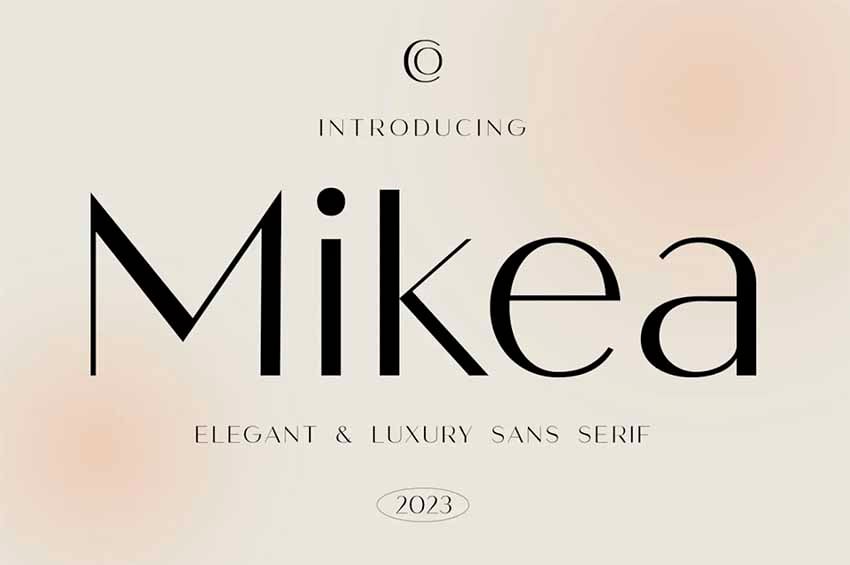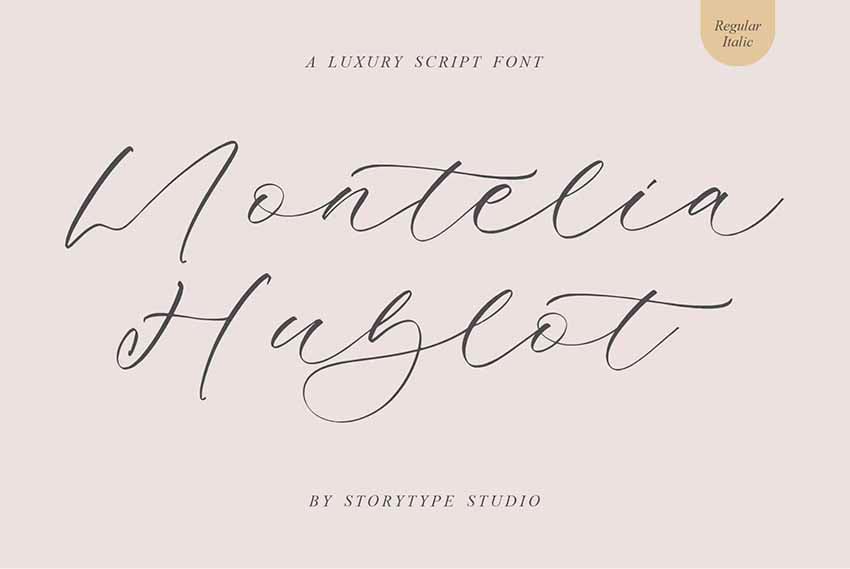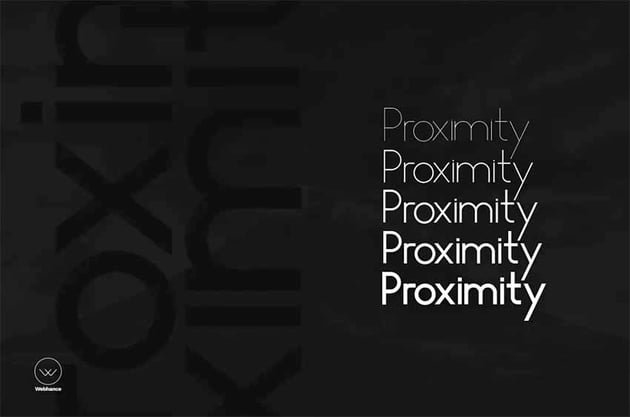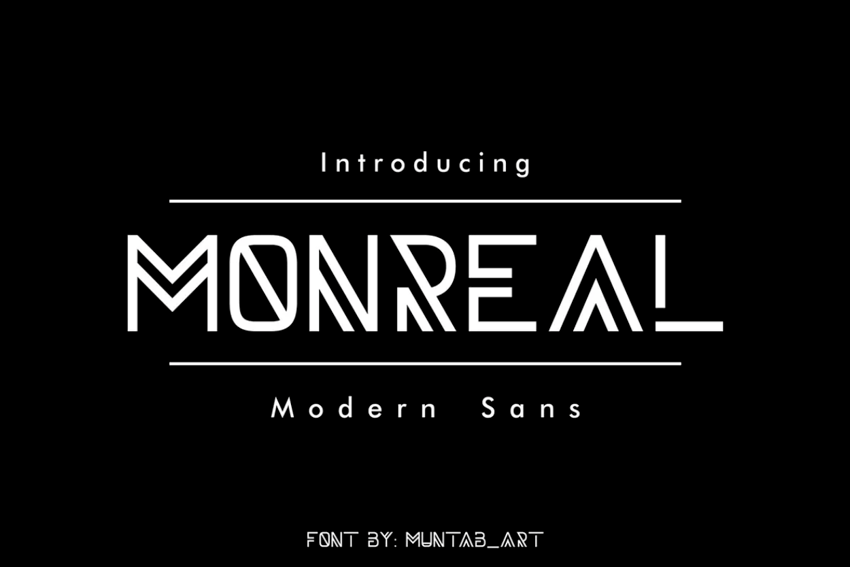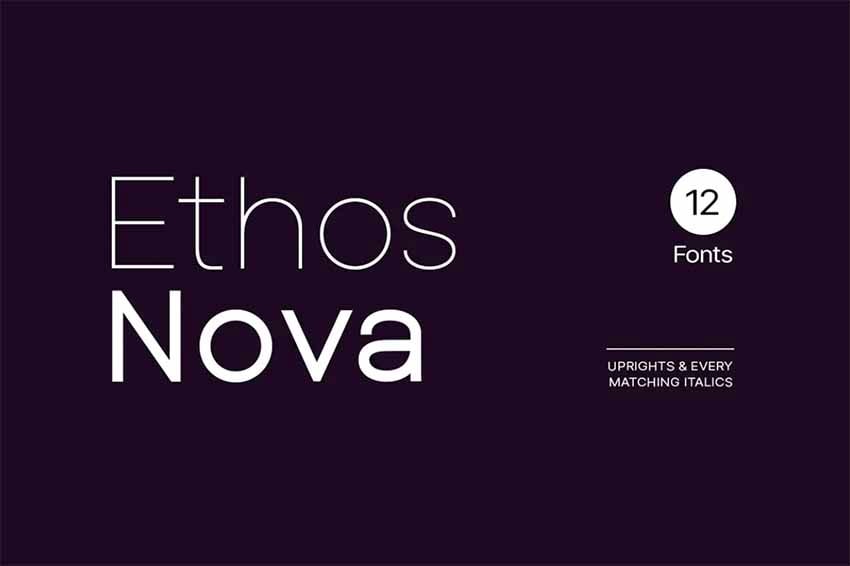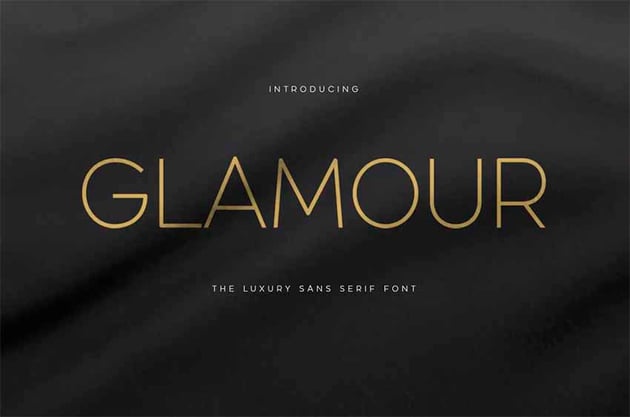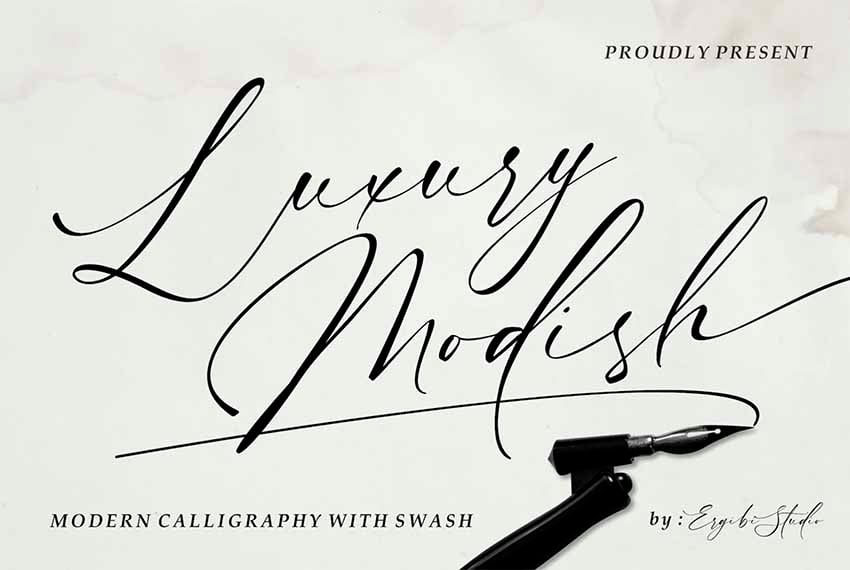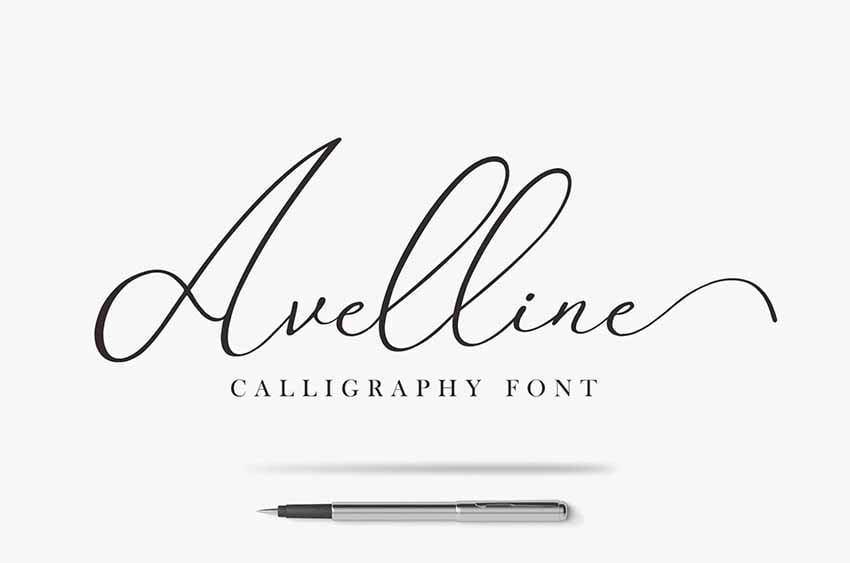
Best Luxury Font Combinations
These two luxury fonts complement each other beautifully. Mikea is a clean sans serif that brings a touch of opulence to your design, while Montelia is an elegant signature font with a carefree touch.
2. Wyattruly (OTF, TFF, WOFF)and Proximity Sans (OTF, TFF, WOFF)
If you're wondering what font yells luxury, check out Wyattruly. This luxury script font offers flowing and stylish lines. It works well with Proximity Sans, which is all about simple and clean lines in a wide range of weights.
3. Monreal (OTF, TFF) and Ethos Nova (OTF, TFF, WOFF)
Looking for something modern, cool, and classy? Monreal has all those characteristics and more. This unique decorative font works well with the understated Ethos Nova. This is one of those luxurious font pairings you won't be able to resist.
Priscyla is another luxury script font that offers flowing, stylised lines that are a great complement to the lean and classy Glamour. These luxury fonts work well for a wide variety of projects, from branding to magazine covers.
5. Saudah (OTF, TFF, WOFF) and Luxury Modish (OTF, TFF, WOFF)
Saudah offers strong and clean strokes that are great for titles, headers, signage, and more, while Luxury Modish has a wonderful calligraphic style that's perfect for accenting text. Together, this is one of those luxury font combinations that works for a number of projects.
Avelline is a stylish calligraphic luxury script font, and that's what makes it the perfect pairing for Marlin with its bold and clean strokes.
7. Deloiré (OTF, TFF, WOFF) and Senja Mentari (OTF, TFF)
Whereas Deloiré is simple, clean, and easy to read, Senja Mentor is stylish, individual, and oh so chic. Luxury font pairings like this are great for branding, logos, product packaging, and more.
Wondering what font yells luxury? Valencia is a cool Art Deco font that's an excellent choice when only the best will do. It pairs well with the light and flirtatious Quirtty. Luxury font pairings like this are just what you need for your special project.
With its smooth curves and beautiful ligatures, Gamgote Luxurious Fonts is hard to beat as an excellent complement for the clean, simple lines of Kento.
10. Giften Cray (OTF, TFF, WOFF) and Tundra (OTF, TFF, WOFF)
Giften Cray is a wonderful decorative font that's great for headlines, titles and such, while Tundra is a great choice for sub-headings. Luxurious font pairings like this one are great for any number of projects.
The stylish and classy luxury font Deluce is a great complement to the flowing and elegant signature font, Grandiose. Use the two together to create magic in your next project.
12. Giften Sans (OTF, TFF, WOFF) and Helixa (OTF, TFF, WOFF)
Check out the cool, futuristic Gatling, a great font for projects that need a cool and unique luxury font. Pair Gatling with the more legible Helix, which is great for all sorts of body text.
13. Williamson (OTF, TFF, WOFF) and Vernazza (OTF, TFF, WOFF)
When you're looking for luxurious font pairings for a new project or business venture, choose this dynamic duo of luxury fonts. Williamson is a great script font that offers flowing lines and a bouncing baseline, while Vernazza is all about structure and long, lean strokes.
It doesn't get classier than this most wonderful of luxury font combinations. Luxury is perfect for branding, logos, titles, headers, and more, while Castlegar is a great accent font that brings glamour and flow to the more structured Luxury.
Bolgek is a luxury font that's an excellent choice when you need something unique and eye-catching for your next project. This decorative font is great for titles, signage, headers, and the like, while Mesveda is the perfect complement for sub-headings and body text.
Calya is a serif font with a modern luxury style that's great for titles, headings, and more. Sagest, on the other hand, is a wonderful luxury script font that's perfect for adding stylish accents to your project. These luxurious fonts are a terrific addition to your font library.
17. Avazola (OTF, TFF) and England Reality (OTF, TFF, WOFF)
It doesn't get much better when it comes to luxurious fonts than the wonderful Avazola. This elegant serif works well with the flowing lines and bouncing baseline of the luxury script font, England Reality.
18. Hesgaki (OTF, TFF) and Simple Sans (OTF, TFF, WOFF)
Create just the look you need to turn heads with Hesgaki and Simple Sans. This is one of those luxury font combinations that's hard to beat. That's because Hesgaki is perfect for headers and titles, while Simple Sans works equally well as a header or body text.
Raginy is another terrific choice of font for headers and titles. This lux sans serif in a stencil style pairs well with the clean and simple Alma Sans, which comes in five different weights.